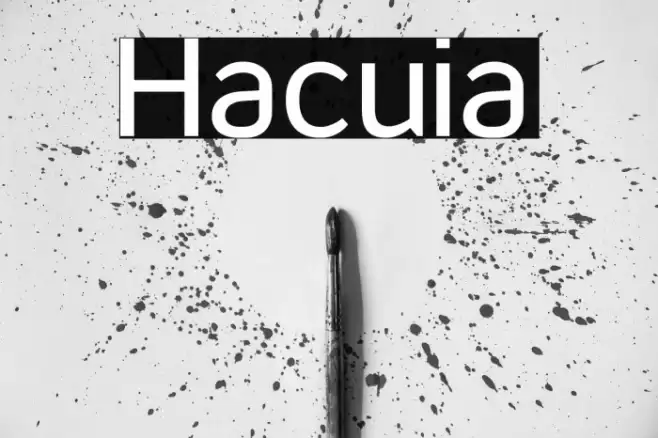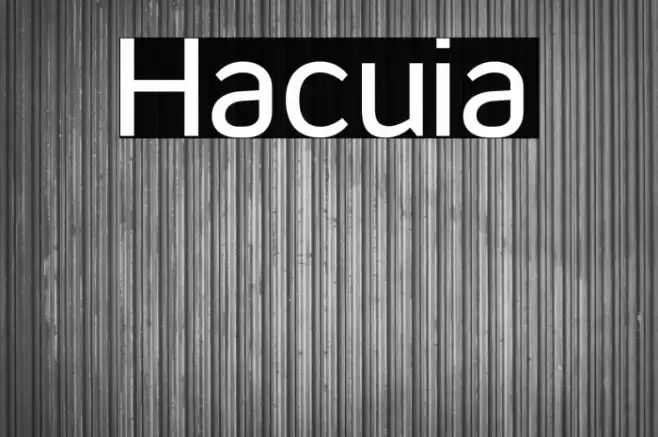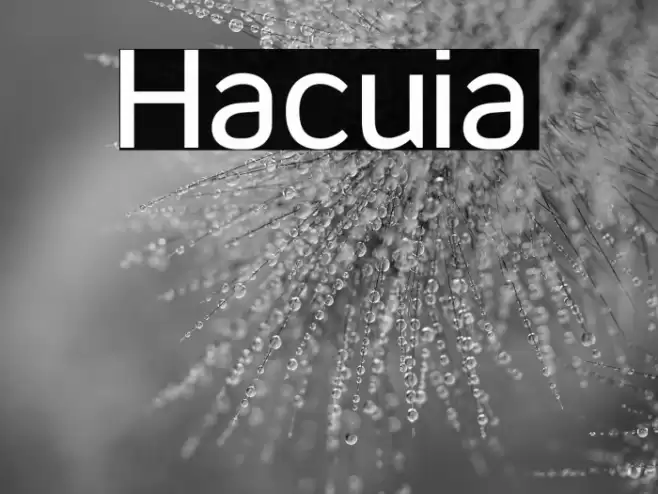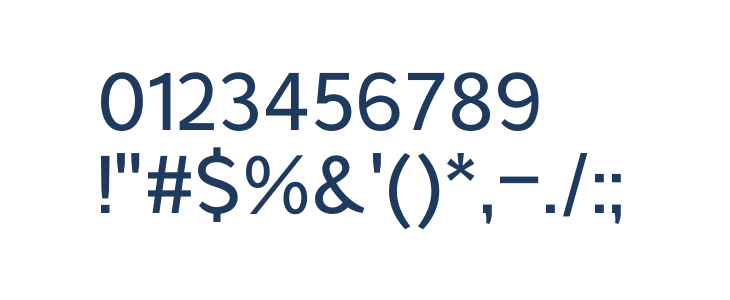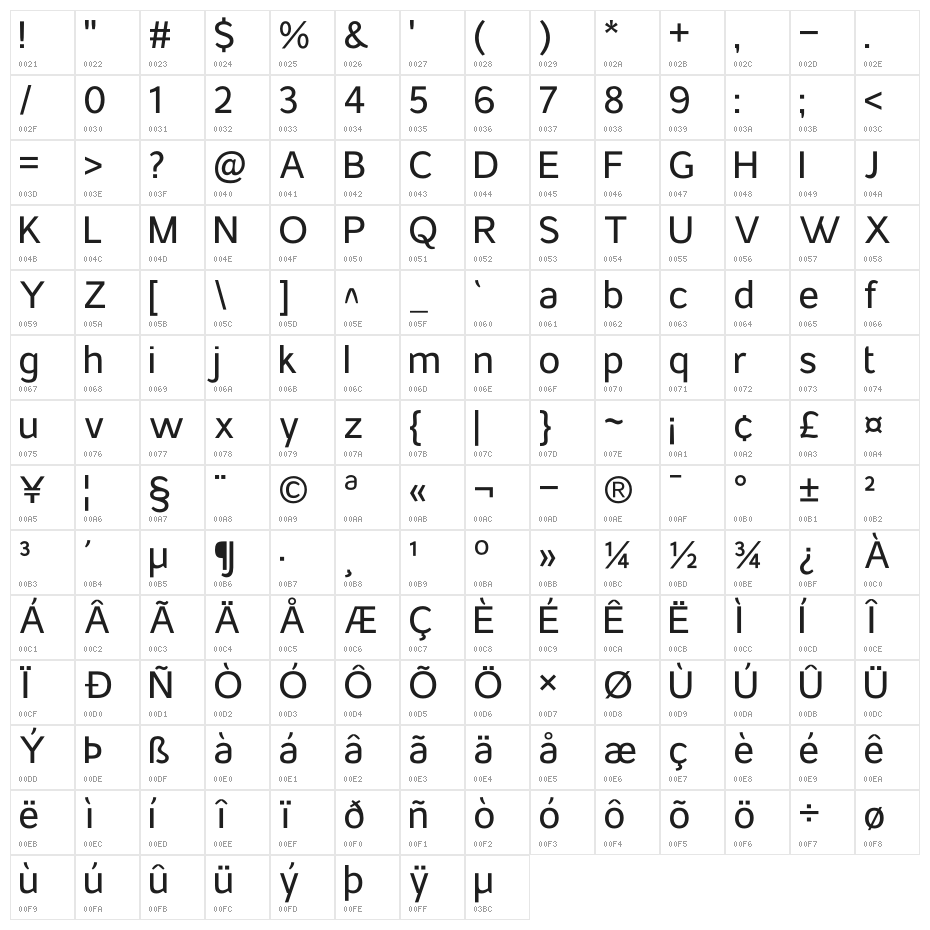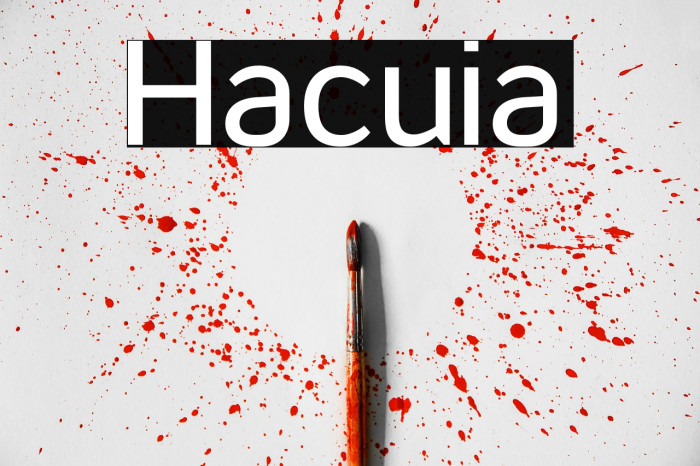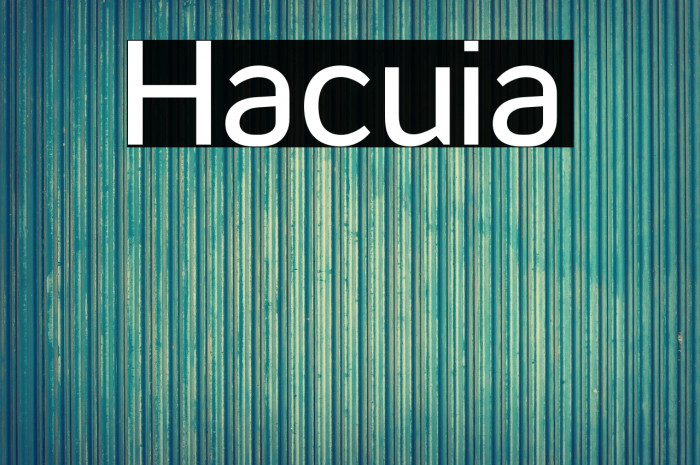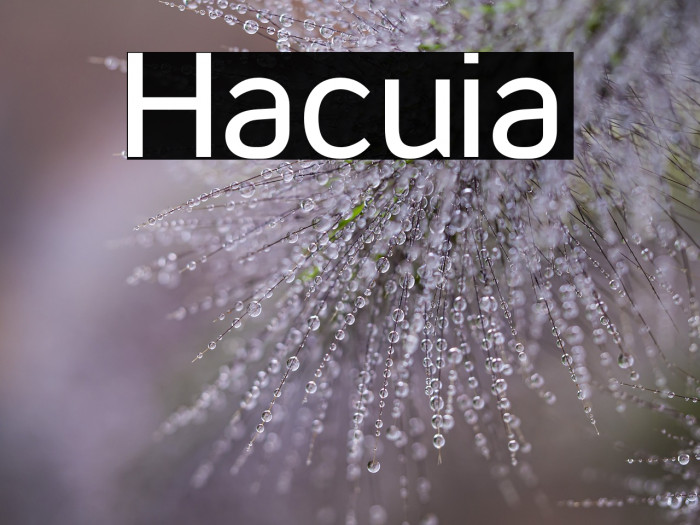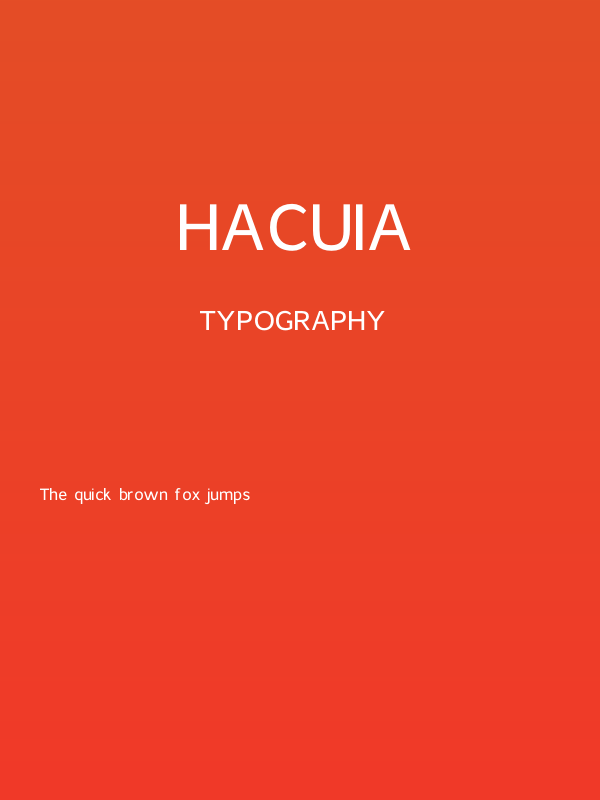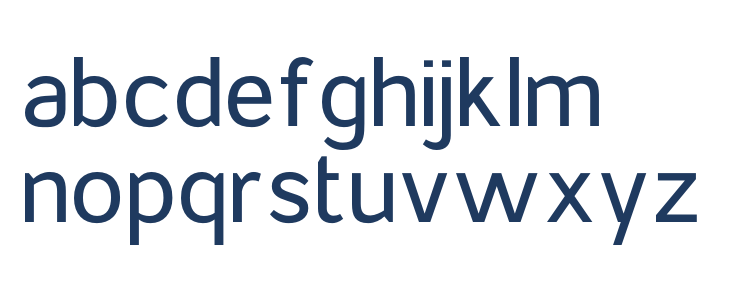
Hacuia Font
Hacuia Description
This font features a clean and modern sans-serif design, characterized by its uniform stroke width and minimalistic appearance. The uppercase letters are bold and assertive, while the lowercase letters maintain a consistent height and rounded edges, contributing to its readability. The numerals are clear and straightforward, matching the overall aesthetic of the alphabet. Special characters are well-integrated, maintaining the same visual weight and style as the letters and numbers. The font's simplicity and clarity make it versatile for various design applications.
A modern, clean sans-serif font with uniform stroke width and minimalistic design from Regular fonts.
- Proposed Projects: Ideal for branding, web design, corporate materials, and user interfaces due to its clarity and modern appeal.